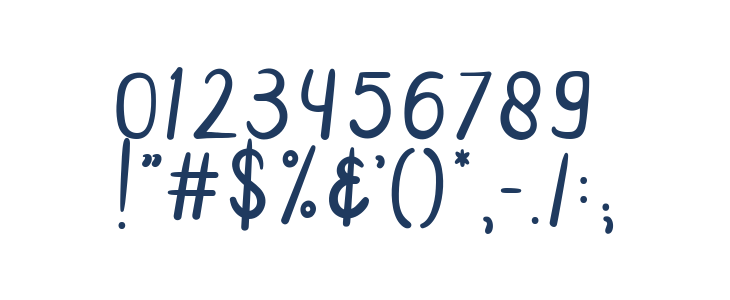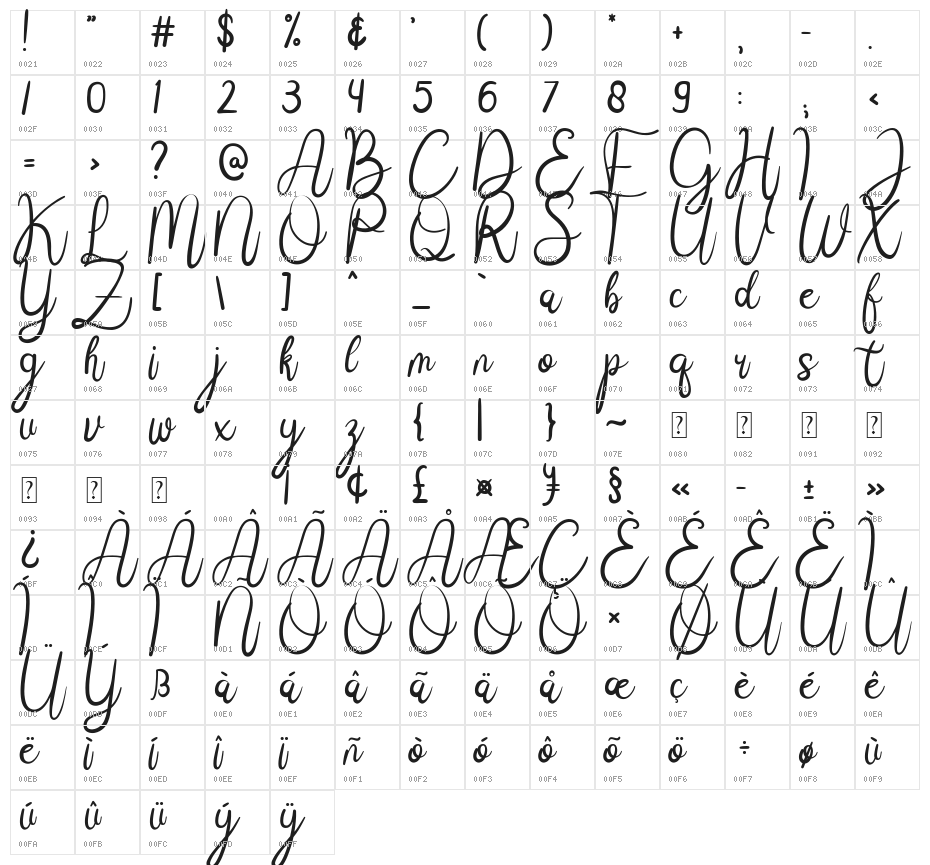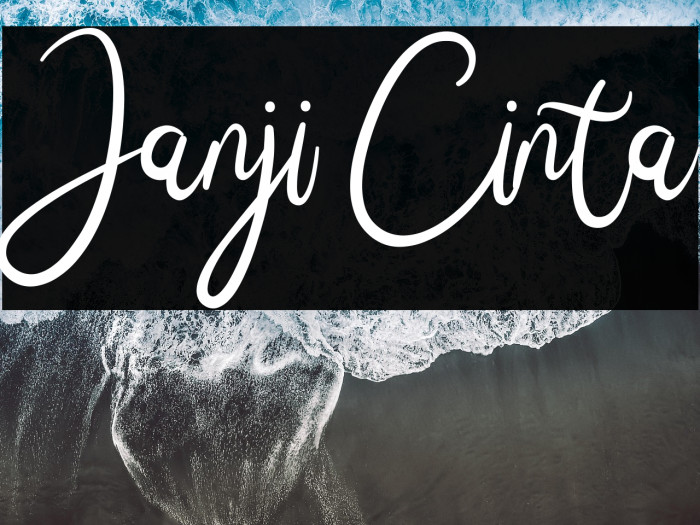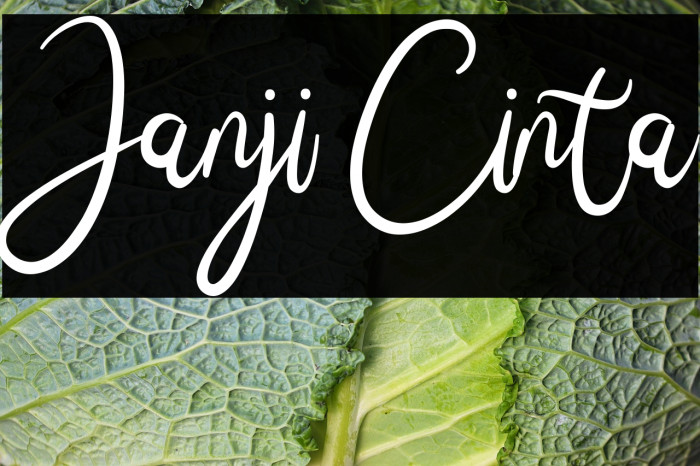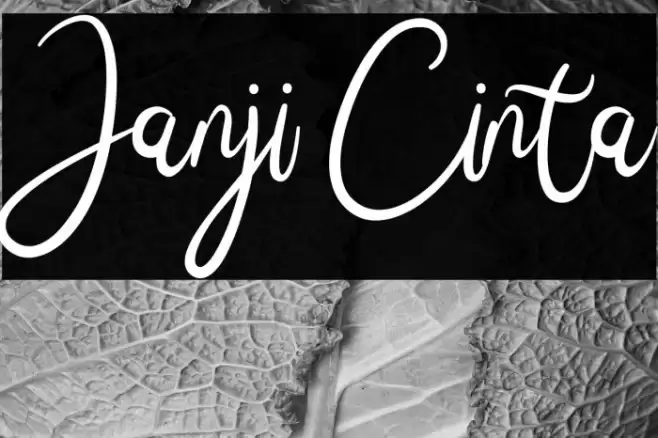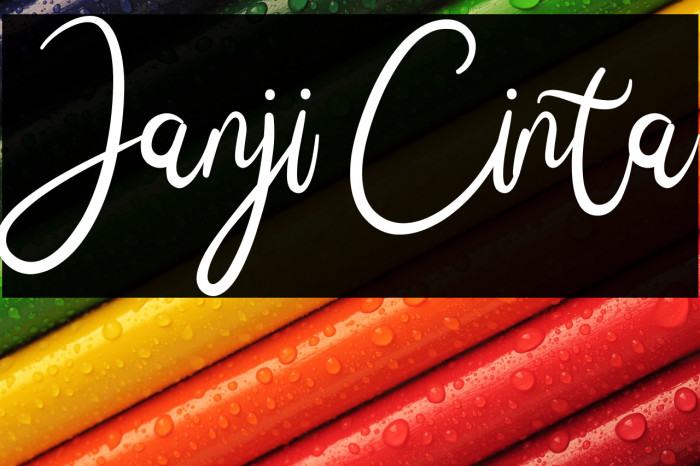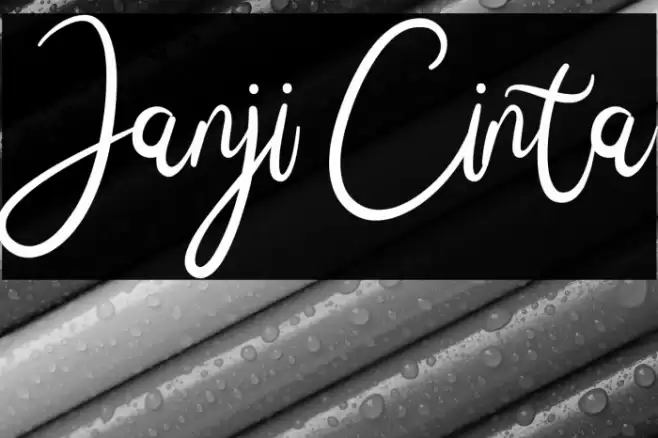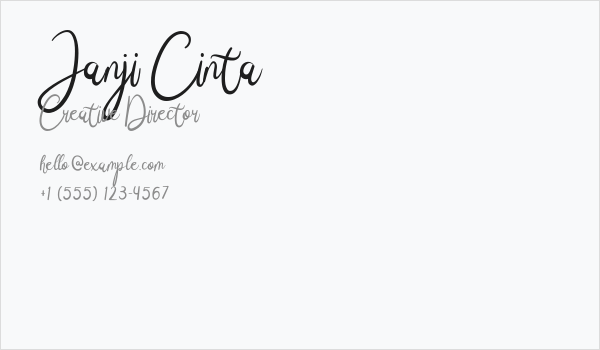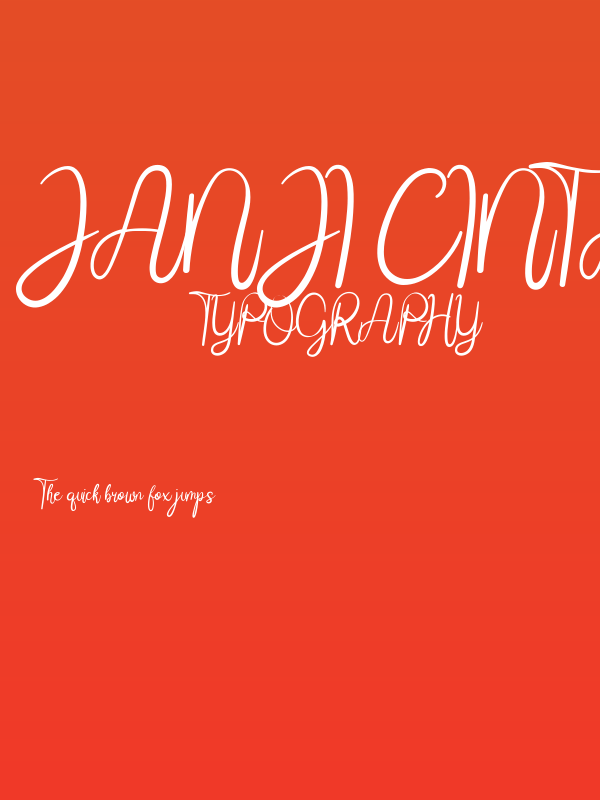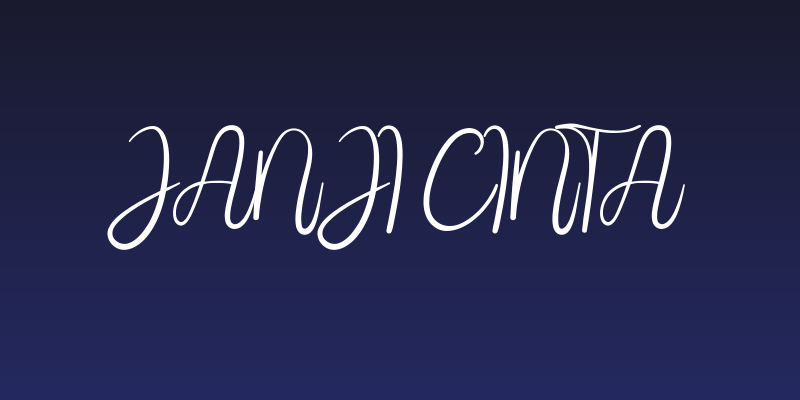
Janji Cinta Font
Janji Cinta Description
This font features a flowing, cursive style that exudes elegance and sophistication. The uppercase letters are tall and slender, with graceful loops and curves that give them a sense of movement. The lowercase letters maintain a consistent flow, with some characters extending below the baseline, adding to the font's dynamic appearance. The numbers are clear and legible, maintaining the cursive theme with slight flourishes. Special characters are well-integrated, matching the overall aesthetic. This font is perfect for projects that require a touch of elegance and personality.